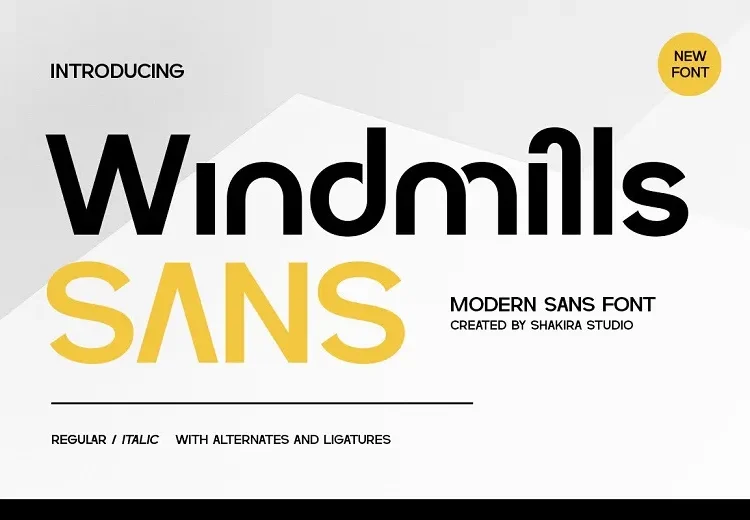
Windmills Font
Windmills is a sophisticated sans serif typeface that balances elegance with simplicity, making it a versatile choice for a wide range of design applications. Available in both regular and italic styles, Windmills offers a clean, detailed look that suits various creative projects, from logo design to branding and beyond.
Key Features:
• Elegant Simplicity: Windmills combines a minimalist design with intricate detailing, making it ideal for projects that require a modern yet refined aesthetic.
• Versatile Usage: Whether you’re crafting logos, designing posters, or creating social media graphics, Windmills provides the flexibility to adapt to different design needs.
• Modern Aesthetic: With its fashionable stylistic sets and ligatures, Windmills adds a contemporary flair to your work, ensuring a fresh and polished look.